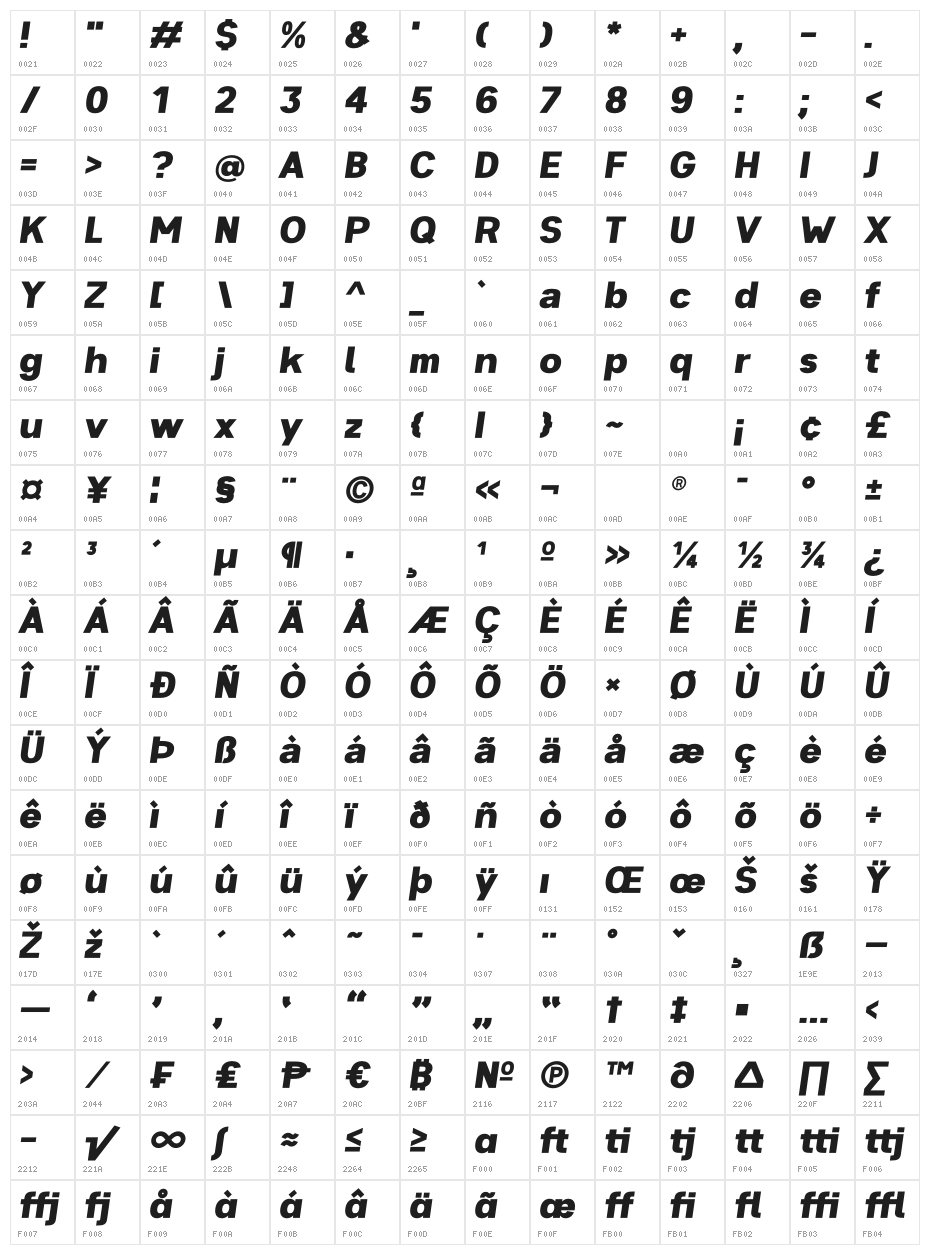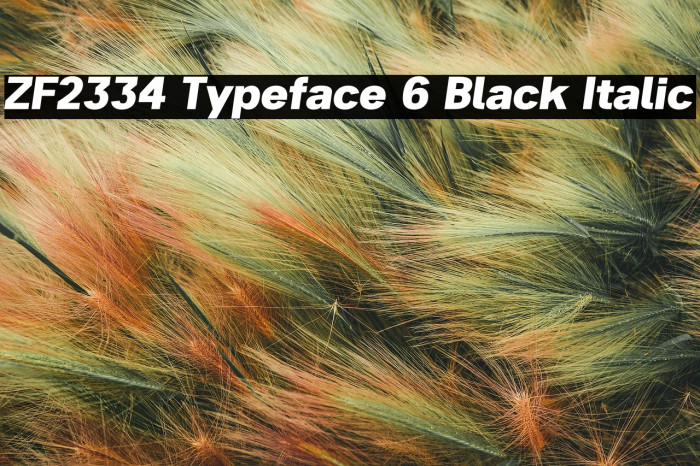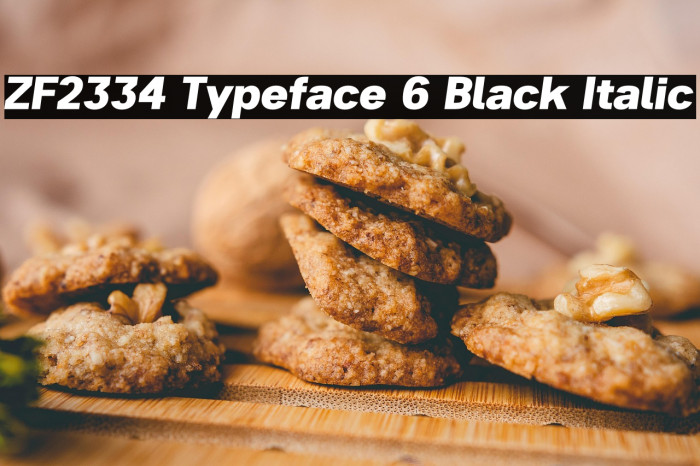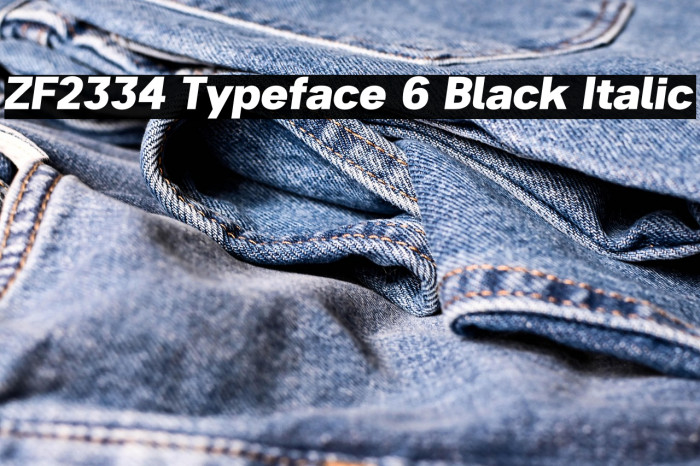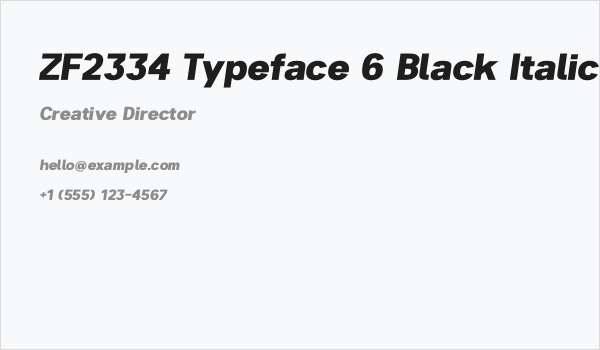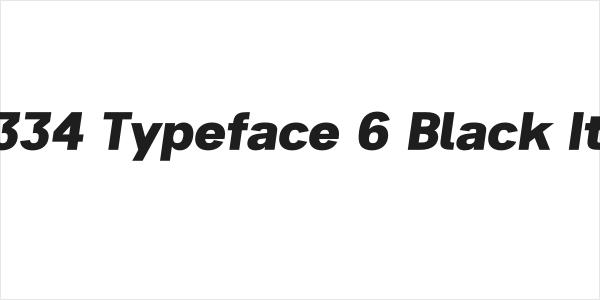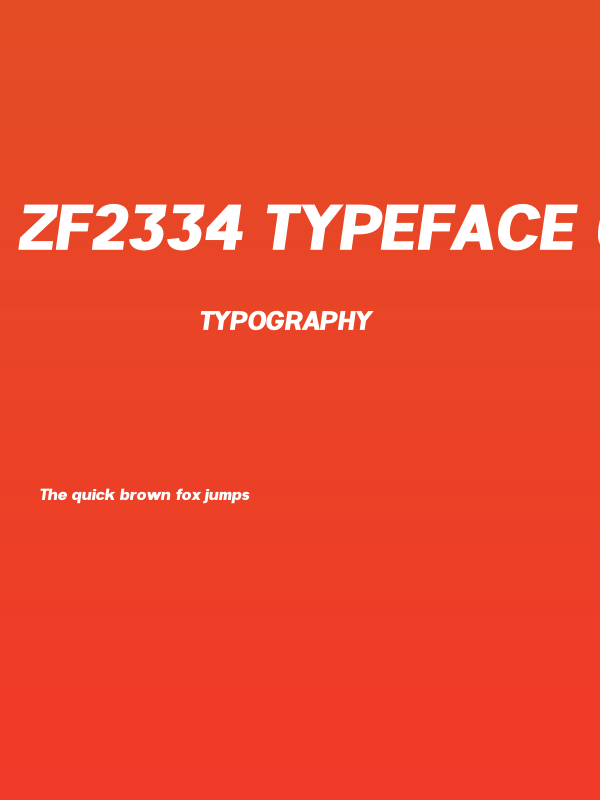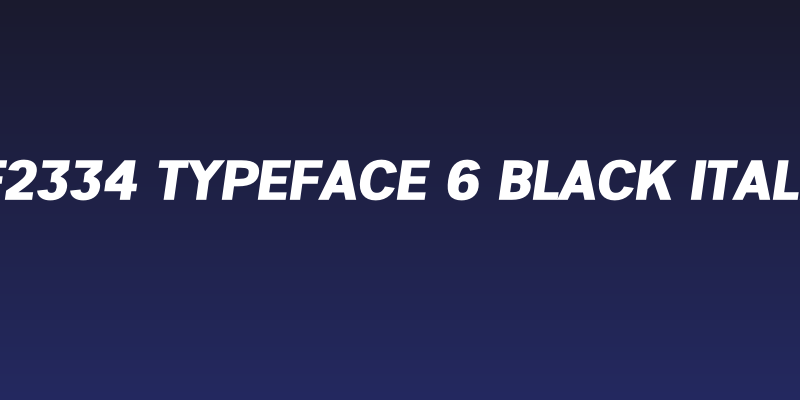
ZF2334 Typeface 6 Black Italic Font
ZF2334 Typeface 6 Black Italic Description
This typeface features a bold and italicized style, characterized by thick strokes and a pronounced slant, giving it a dynamic and assertive appearance. The letters are well-defined with a consistent weight throughout, providing a strong visual impact. The uppercase and lowercase letters maintain a cohesive design, while the numerals and special characters complement the overall aesthetic. The font's boldness and italic nature make it suitable for attention-grabbing headlines and impactful designs.
| Proposed Projects | Ideal for branding, advertising, poster design, and any project requiring a strong visual presence. |